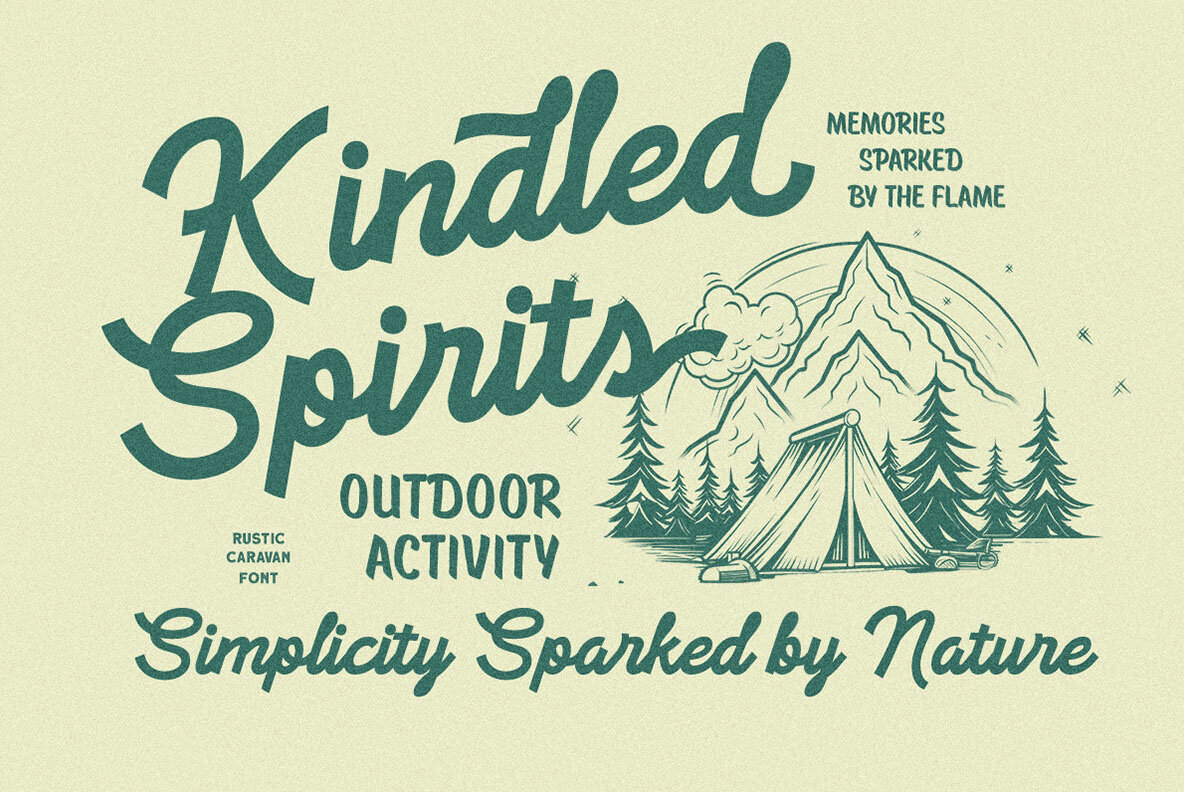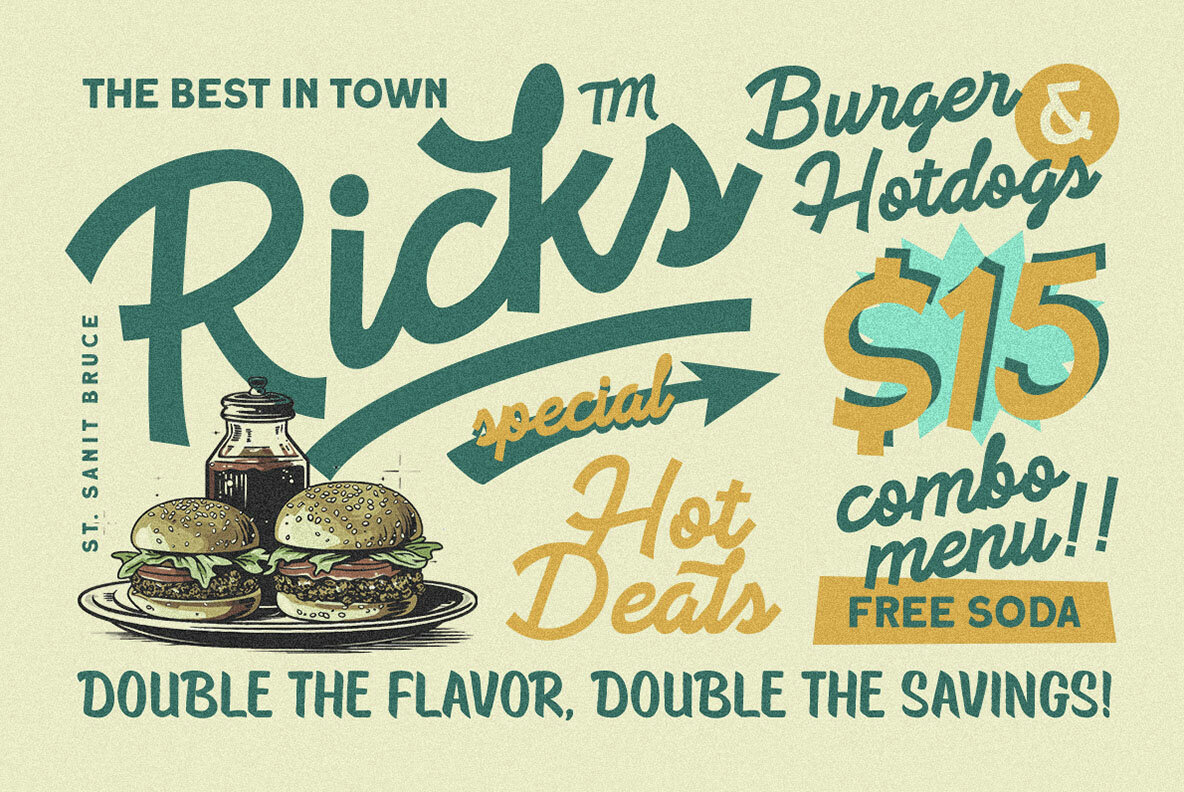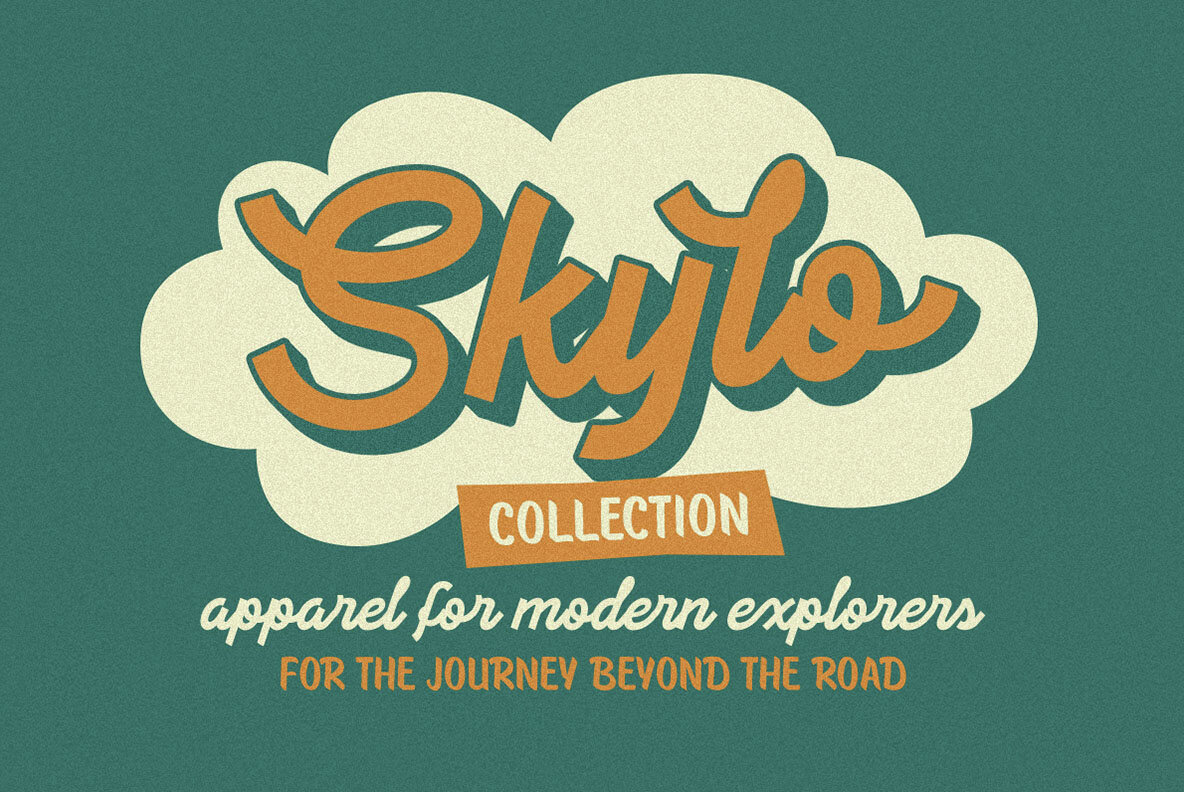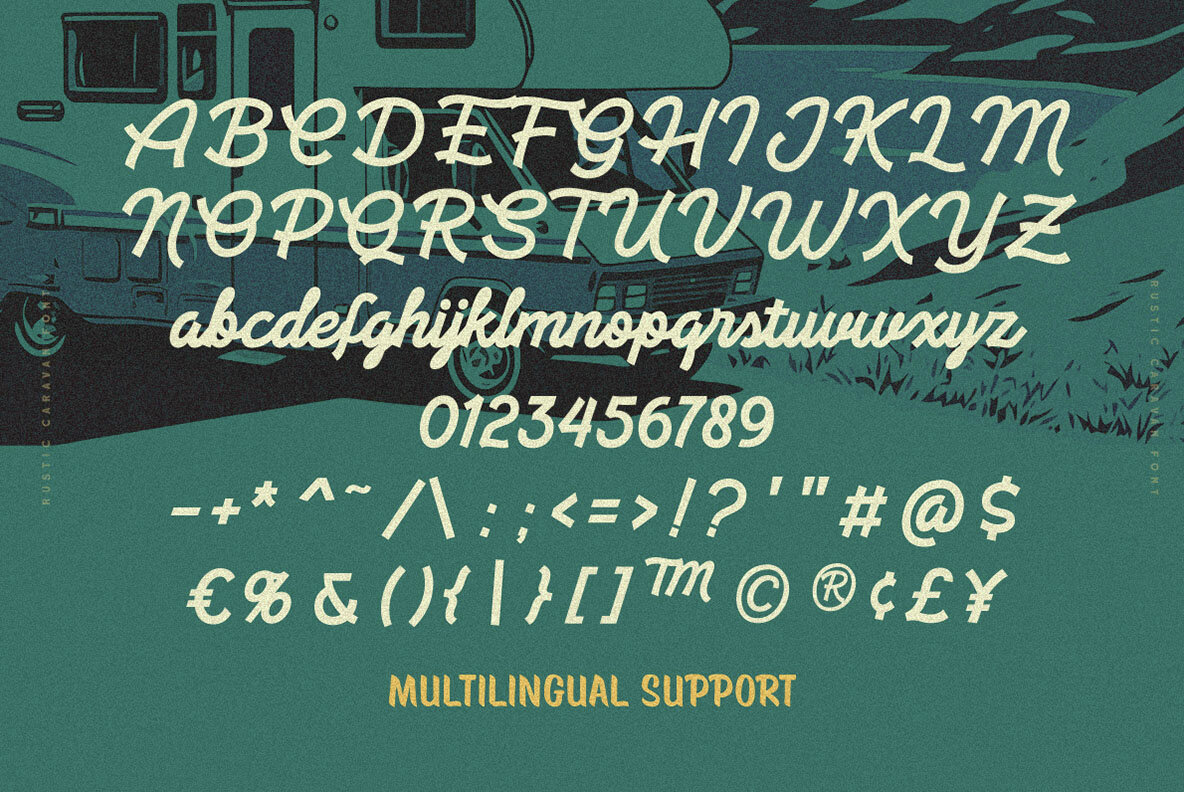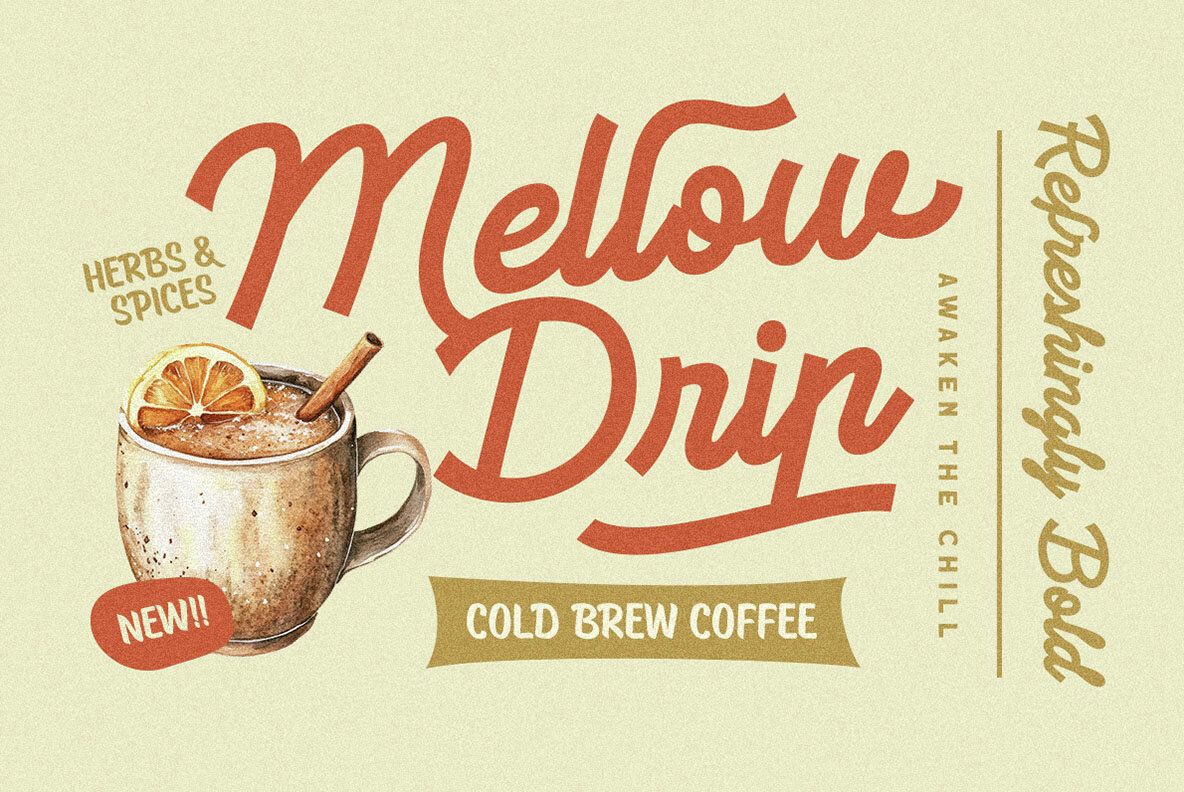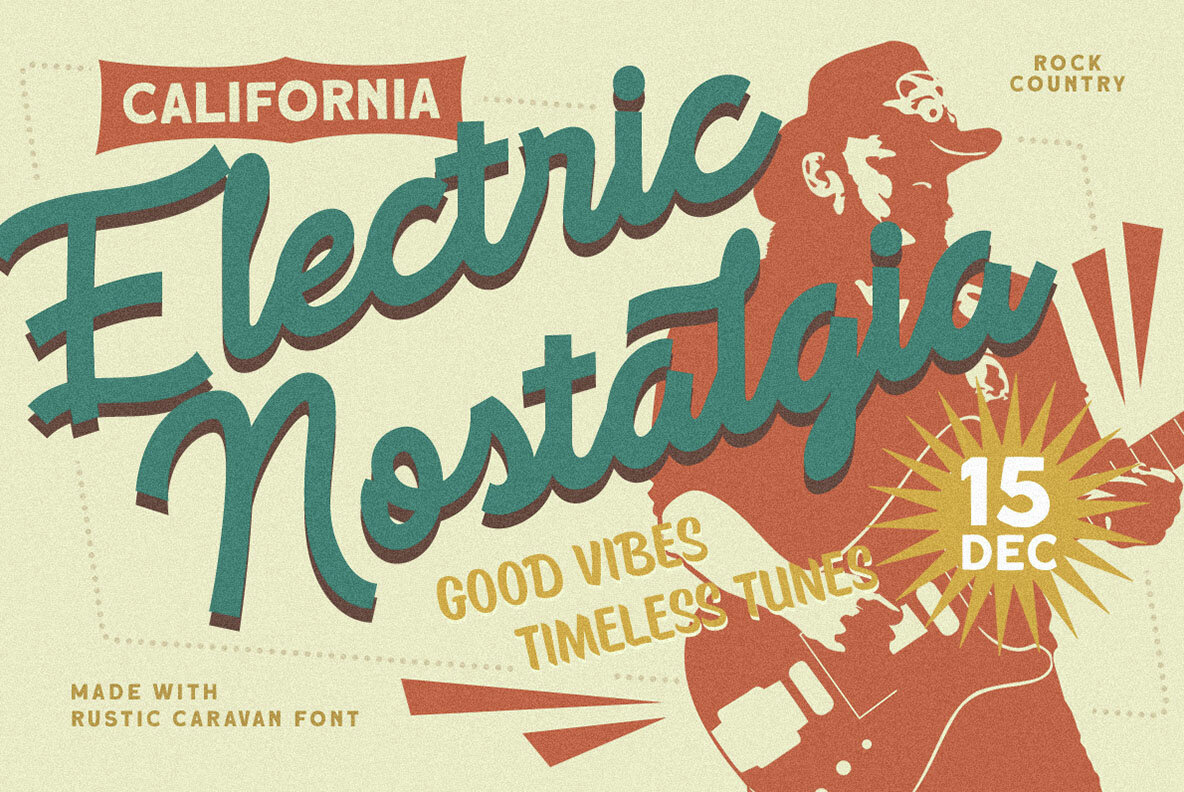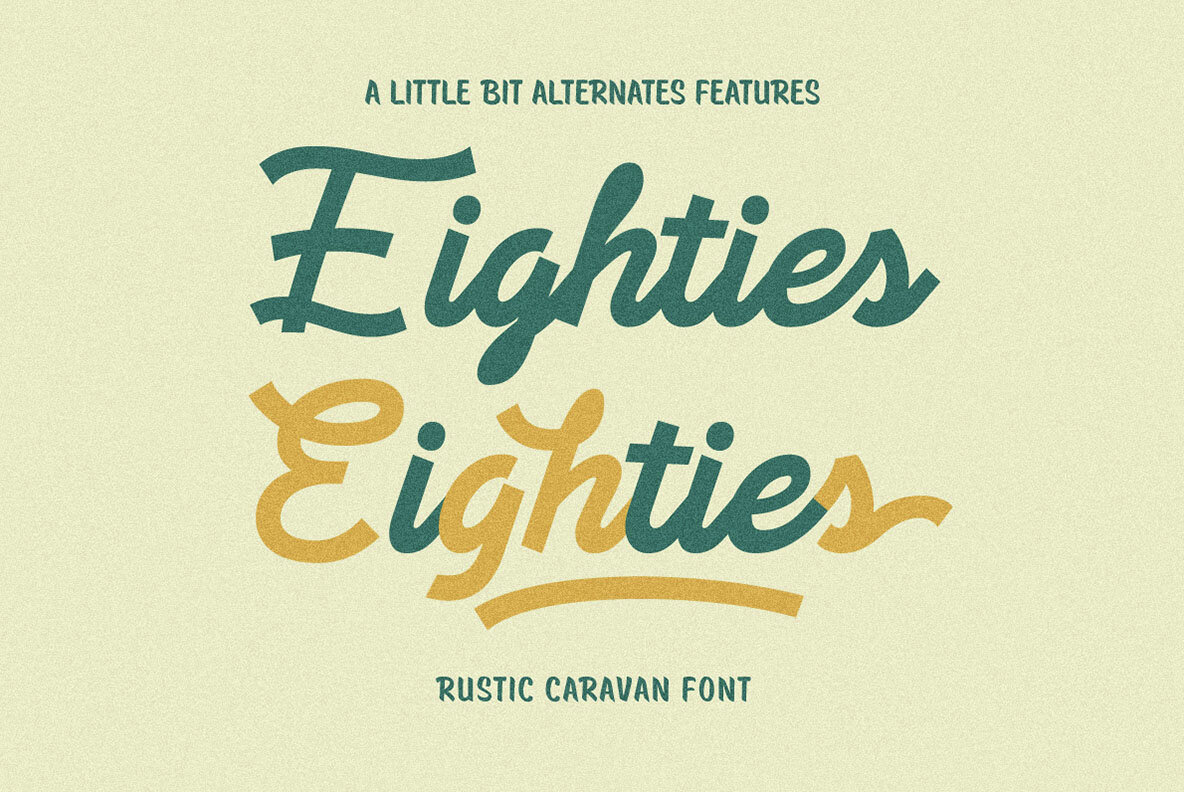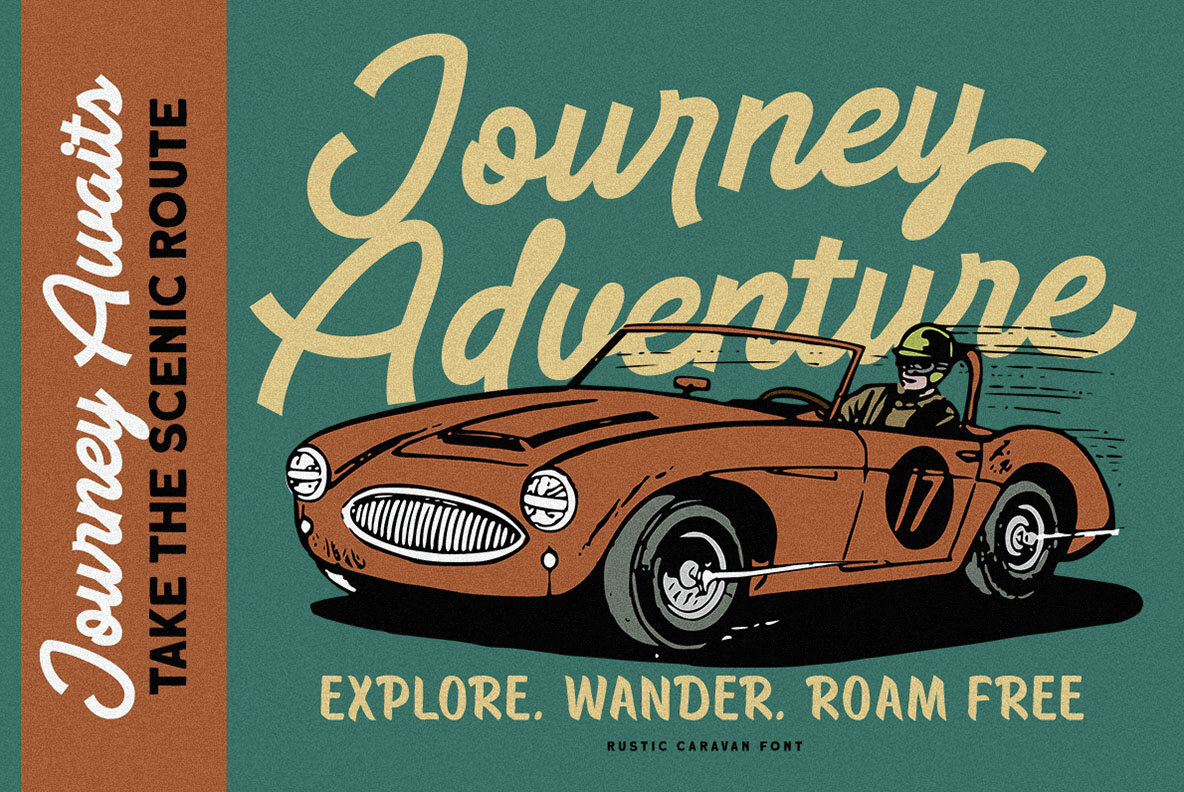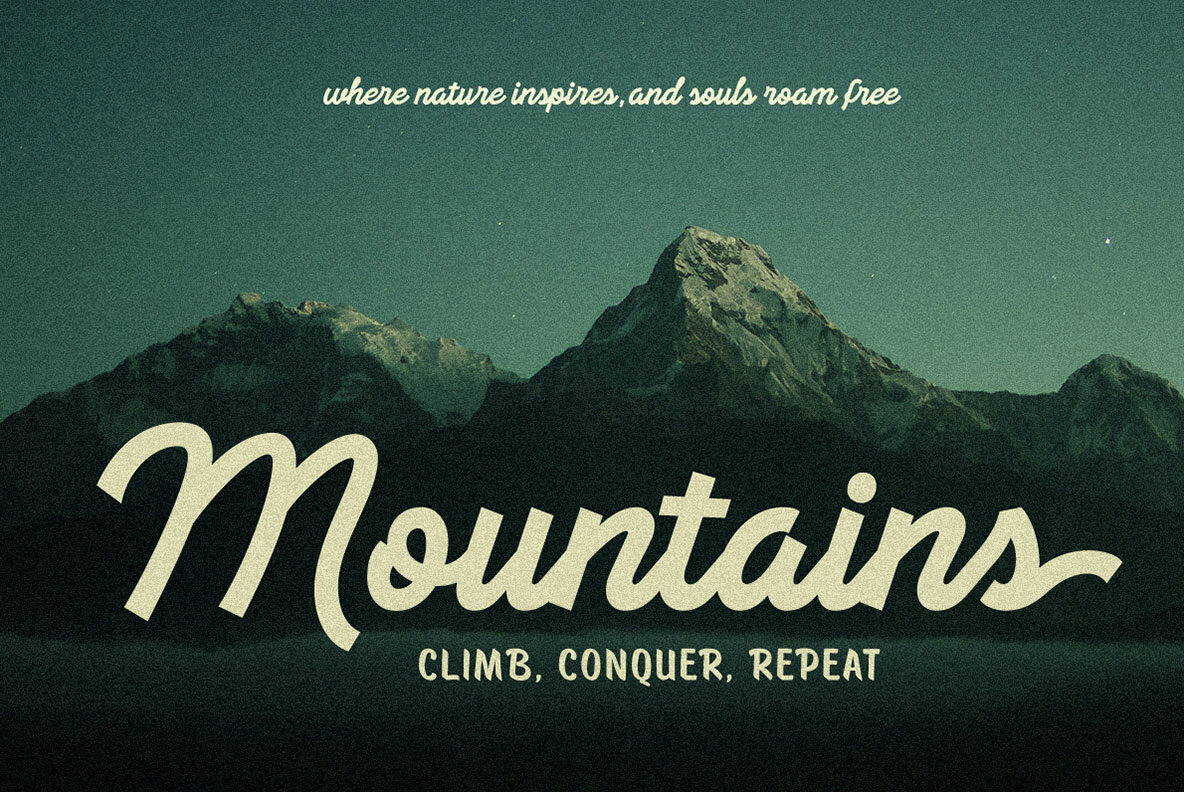
Rustic Caravan Font
Rustic Caravan Regular
Rustic Caravan is a casual monoline script display font. This font perfectly made to be applied especially in logo, and the other various formal forms such as invitations, labels, logos, magazines, books, greeting / wedding cards, packaging, fashion, make up, stationery, novels, labels or any type of advertising purpose. Features: We highly recommend using a program that supports OpenType features and Glyphs panels like many of Adobe apps and Corel Draw, so you can see and access all Glyph variations.